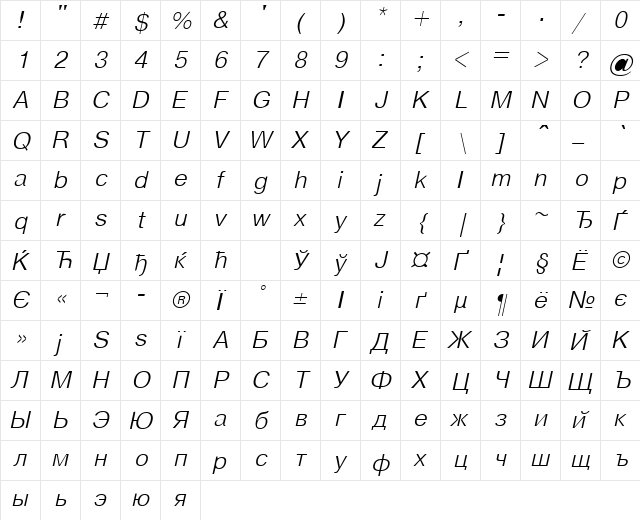
ArtsansLightC Italic Font Preview
Design Context for ArtsansLightC Typeface
ArtsansLightC offers clean, dependable letterforms without strong stylistic allegiance, making it a practical choice for designers who need flexibility. Its italic angle brings a sense of urgency and motion to the letterforms. The delicate stroke weight brings airiness and refinement to layouts.
Pro Tip: Try ArtsansLightC for annotation and caption copy alongside an upright companion — the contrast in angle creates a dynamic but ordered typographic system.